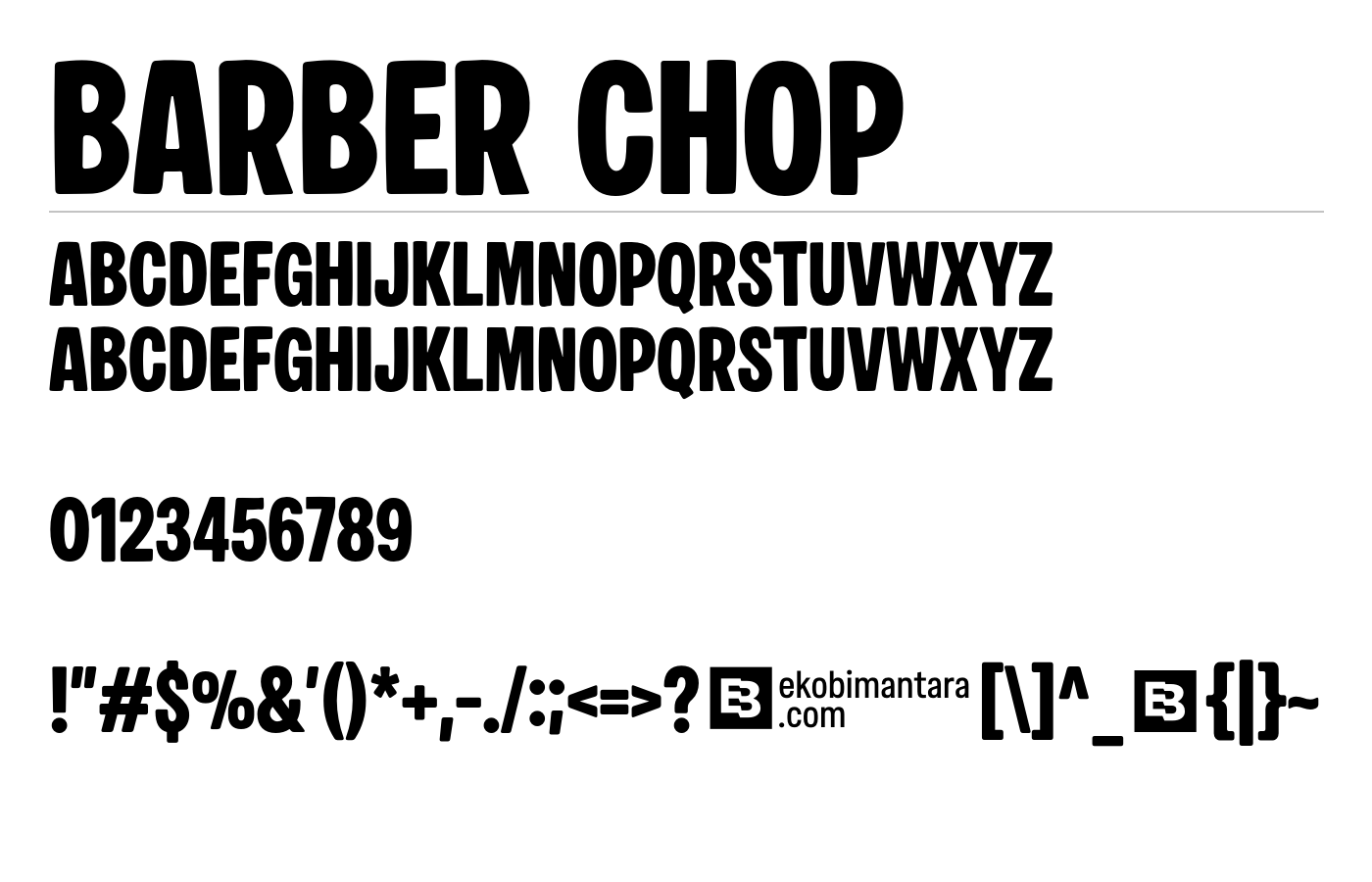
Barber Chop is a bold, condensed sans serif font with a playful and slightly irregular touch, giving it a friendly and informal personality. Its strong, rounded letterforms and high x-height make it highly readable and eye-catching, ideal for headlines, posters, and branding that seek a fun, approachable vibe. This font works well for creative projects, casual branding, and any design that needs a distinctive, energetic impact.
Barber Chop Font
About Barber Chop Font
| Font family | Barber Chop Font |
| Designer | Eko Bimantara |